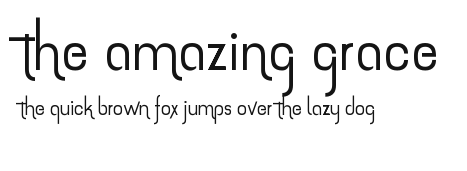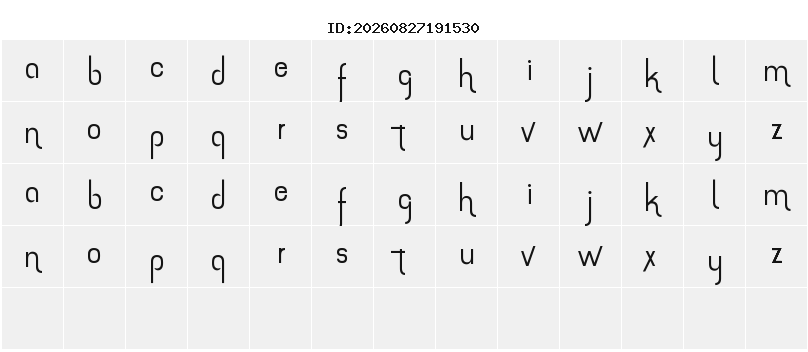
• Font Name: the amazing grace
• Designer: Situjuh Nazara
• Description: the amazing grace is designed for 26 letter only
About the amazing grace.ttf
the amazing grace.ttf is a modern, elegant sans-serif font designed for ultimate readability and visual harmony. Perfect for branding, headlines, web design, and print materials.